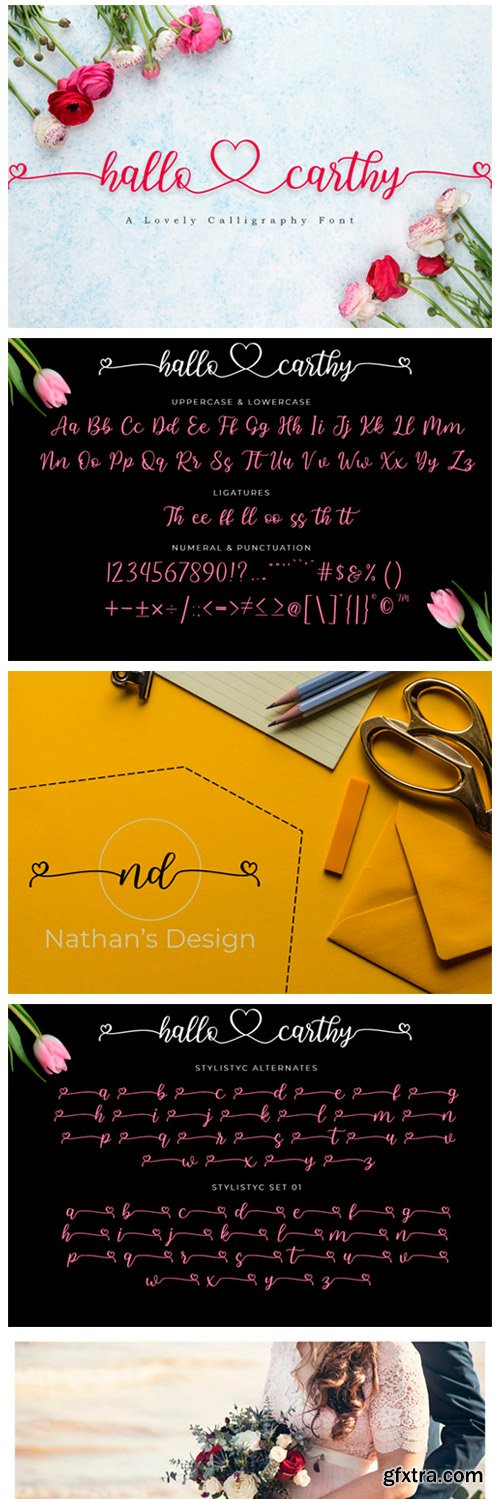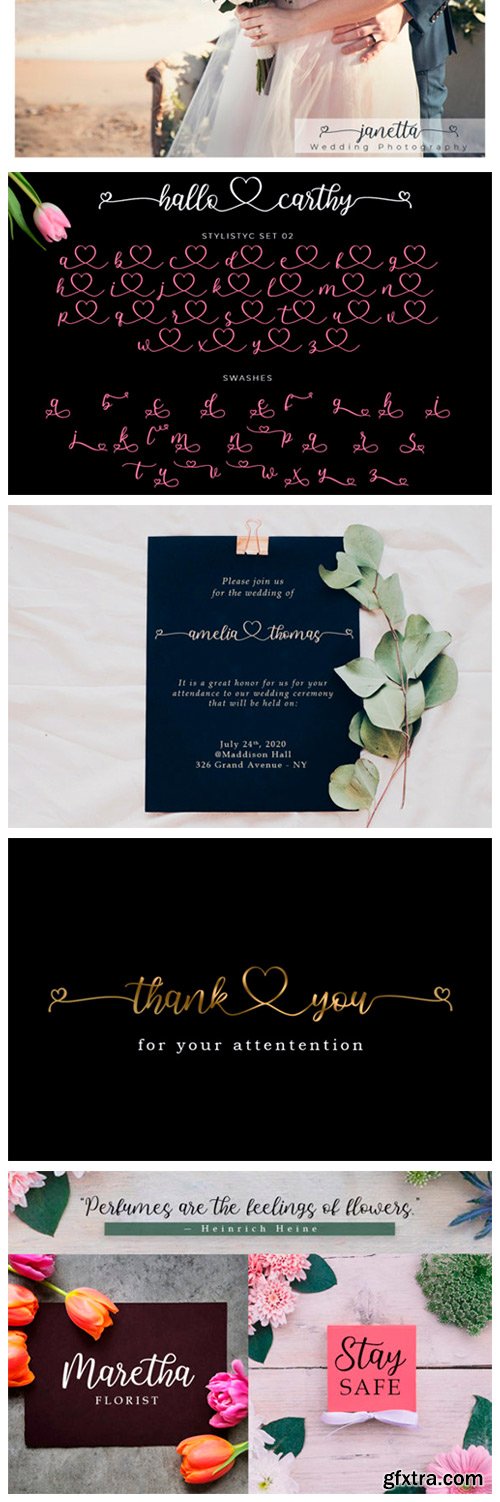
Hallo Carthy Font
Hallo Carthy is a beautiful handwritten calligraphy font. It features cute alternates and heart-themed swashes. Get inspired by its romantic feel and create stunning art. This font is PUA encoded which means you can access all of the cute glyphs and swashes with ease! It also features a wealth of special features including alternate glyphs and ligatures.